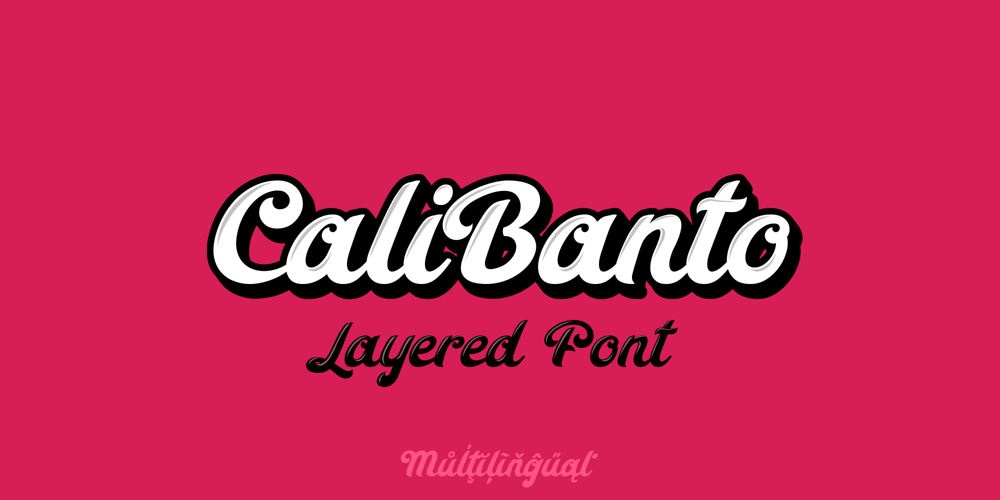
Cali Banto Font Family was designed by Dmytro Poliakh and published by Sentavio. Cali Banto contains 4 styles and family package options. CaliBanto Font is Calligraphic Script consists of 4 Layers (fonts) to create various interesting looks. It is good looking as Title and Text both.It is good for use in:- Holiday’s Greetings- Calligraphy & Lettering- Food & Drinks- Vintage, Fashion, Luxury, Classic, Retro styles